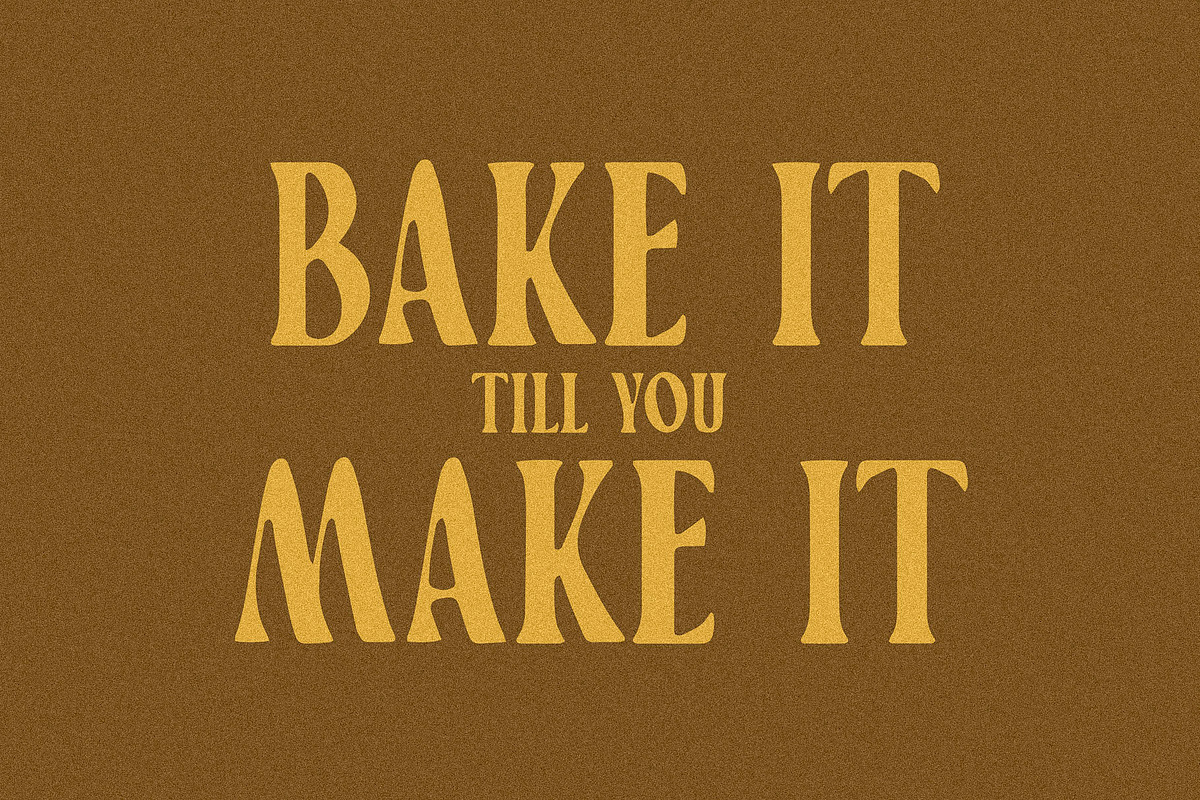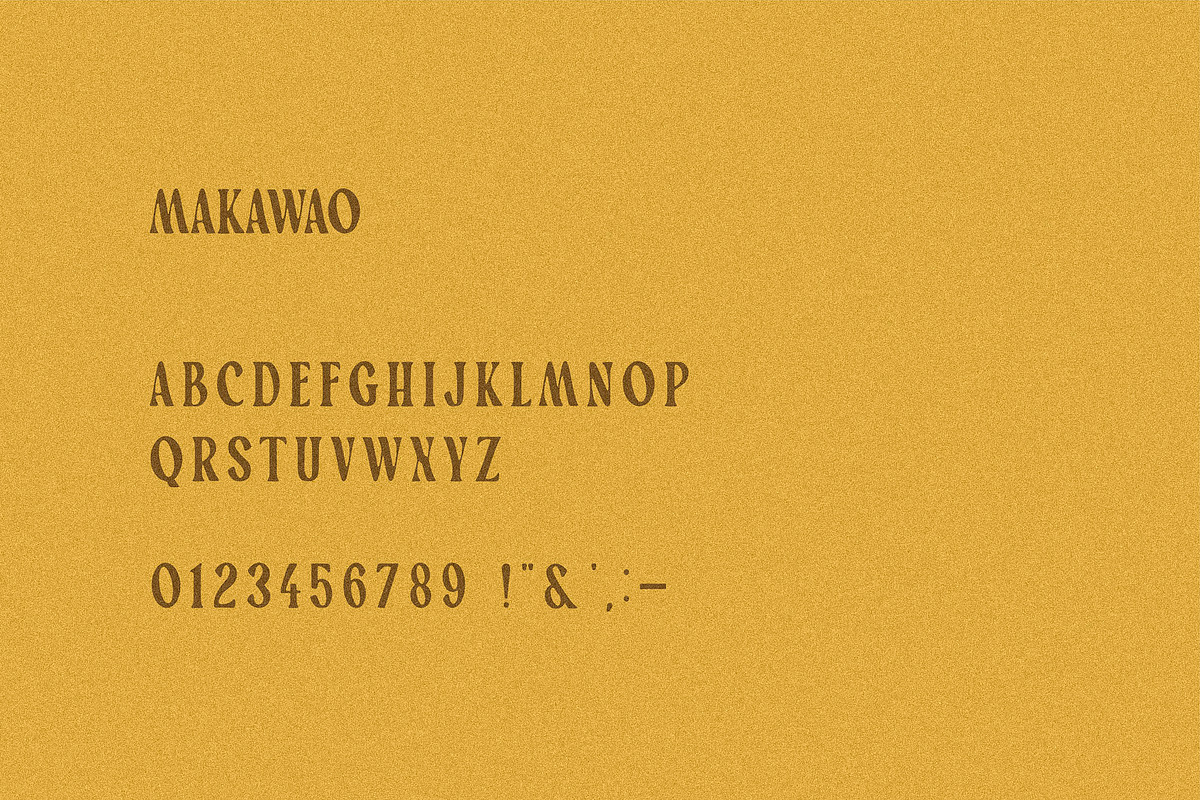
Makawao is a soft modern serif font. It is a fresh addition to the world of type. It’s laidback, welcoming and perfect whatever creative venture you use it for. Contains all uppercase, numbers and basic punctuation.
Perfect for branding, logos, invitations, master heads, magazine covers, book or movie titles, fashion brands, magazines, clothing, fonts, quotes, and much more.